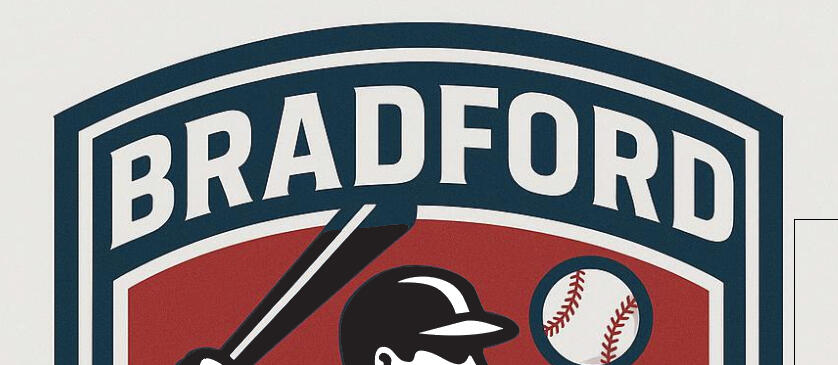
Local softball league logo - Likely AI
League president wants the logo vectored and to use the font for apparel but doesn't know who made the logo, or how.
Since it looks ai to me, something similarly bold and blocky with flares would work.
Thank you! S&S is a great option. I actually just found one very similar as well called Bonard. The letters in Bradford are a close match aside from the crossbar height of the R. Now I'm torn between that and S&S.